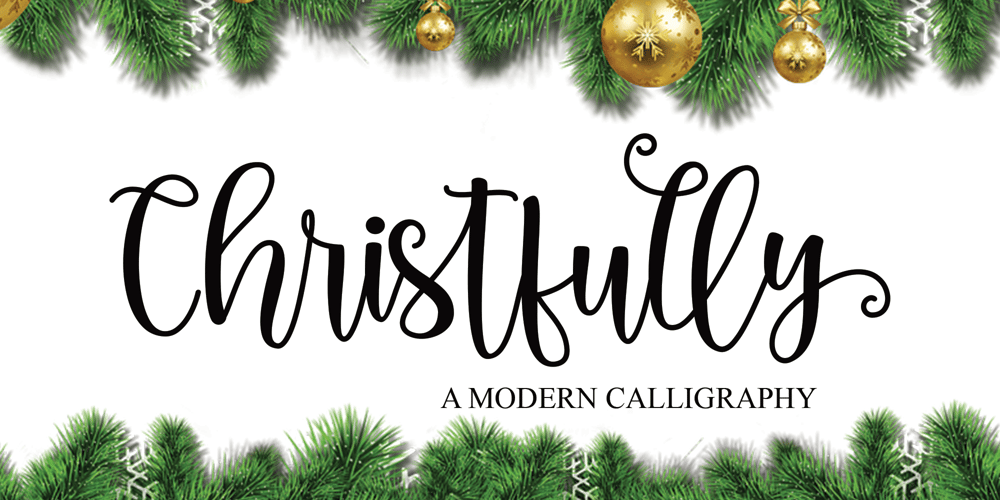
Christfully Font Family was designed by Endri Sulistyawan and published by Rashatype. Christfully contains 2 styles and family package options. Christfully is a lovely and delicate script font that exudes elegance and class. This font is PUA encoded which means you can access all glyphs and swashes with ease!